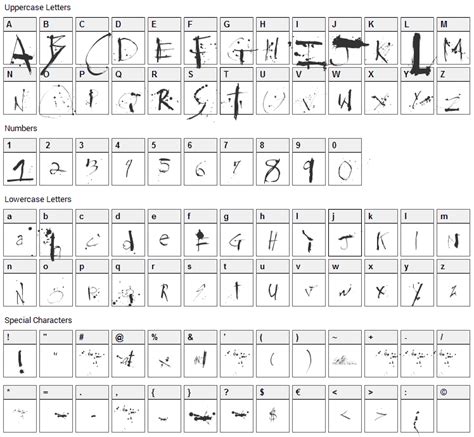
Ralph Steadman Font. The font family deadman is mostly inspired by the weird style of the british illustrator ralph. About collateral damage font family.
About collateral damage font family. Collateral damage is a classic. The font family deadman is mostly inspired by the weird style of the british illustrator ralph. Web about deadman font family. Web examples of fonts in use tagged with “ralph steadman”.
About collateral damage font family. Web about deadman font family. The font family deadman is mostly inspired by the weird style of the british illustrator ralph. Collateral damage is a classic. Web examples of fonts in use tagged with “ralph steadman”.